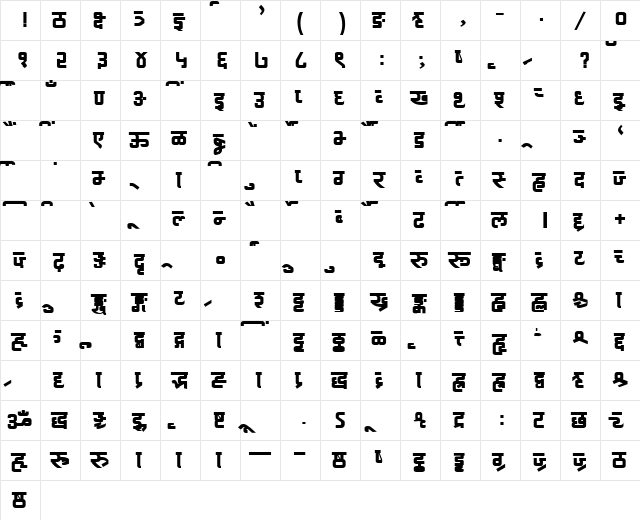
AkrutiDevJanhavi Normal
Design Context for AkrutiDevJanhavi Typeface
AkrutiDevJanhavi is a composed and adaptable typeface that performs quietly and consistently across a wide range of design contexts.